The 1980s was a unique style decade. Filled with neon signs, deco and big hair. The time period brought us big shoulder pads, acid-washed jeans and valley girls. The movie titles and advertising of the time have a distinctive feel one can only achieve by selecting 80s style font choices.
If your client wants a retro look, adding in a heading or choosing a logo design that screams sans serif with some angles and curves is the right option for your project.
If you search for 80s style fonts, you’ll pull up dozens of options. Some are better than others. We’ve taken the time to look at what is reminiscent of the Decade of Decadence and picked a few favorites to share.
1. Overdrive Avenue
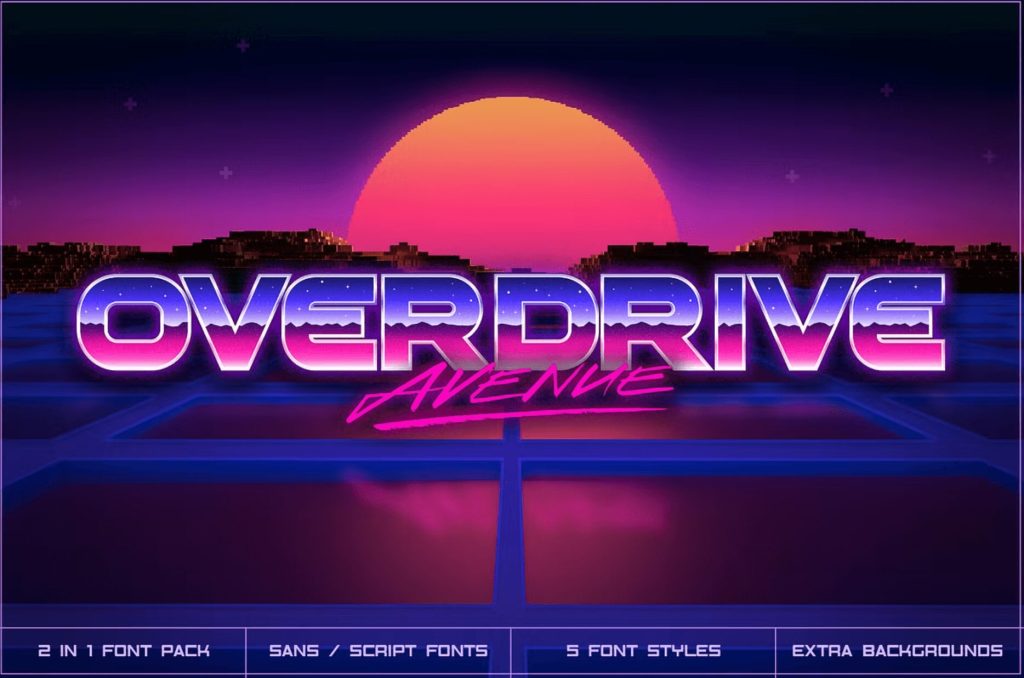
The 1980s meant going to the movies, some drive-ins were still around and renting a VHS tape from Blockbuster. Many movies of the era used big, thick lettering and had an almost futuristic look. Overdrive Avenue comes with sans serif and script styles, including an italics. The set also comes with an outline option.
2. Knight Brush
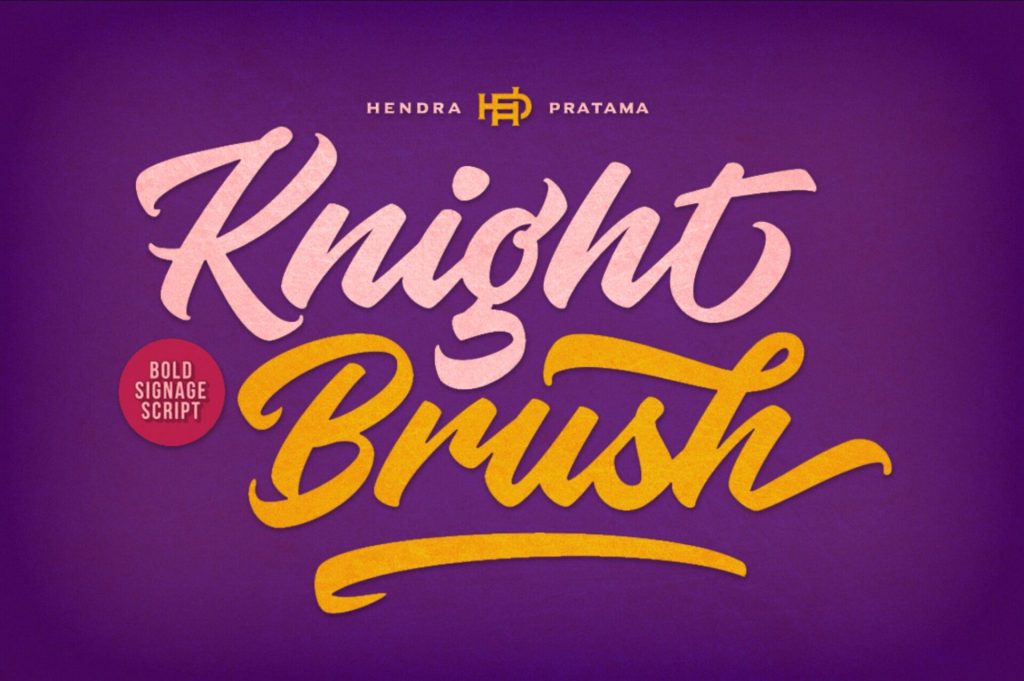
Knight Brush has a fancy, 1980s script feel to it that offers a unique appearance excellent for retro projects. Although it is script, it is still readable with the straight lines and added angles that give it that 80s vibe. The font comes with more than 570 glyphs for a handpainted look. The font supports multiple languages, including English, Albanian, Tetum, Pangasinan and Walloon.
3. Hadfield
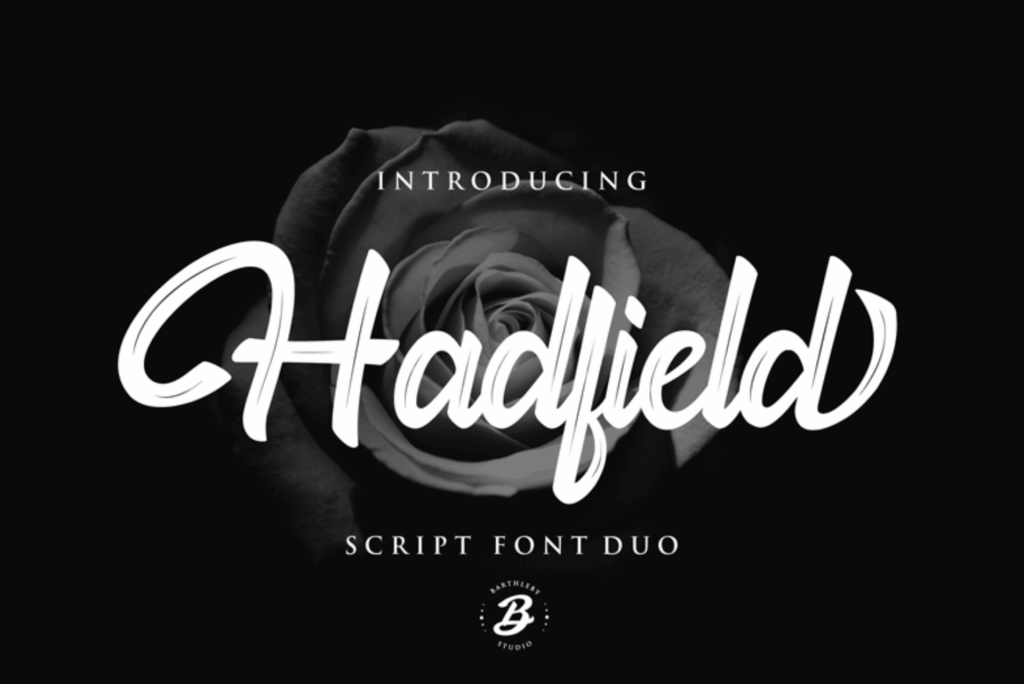
If you’re looking for a font that isn’t quite as thick but still has the 80s retro vibe, look no further than Hadfield. The font was initially released in the 1980s and made it to the number one font. It is a script-based rendering.
Hadfield is often seen on posters, logo and product packaging. Other fonts published around the same time include AG Book, Formata and Baskerville. One way you can get a 1980s style font look while still taking advantage of the modern advantages of today’s designs is by using a retro font in the heading and more current fonts in the body text.
4. Rodagear Script
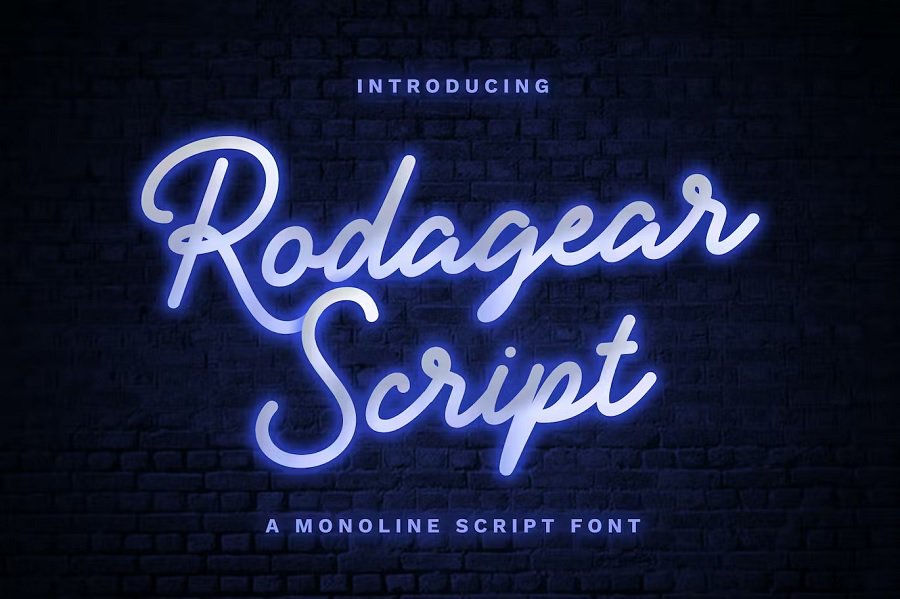
Neon signs and bright, bold colors were a staple of the 80s. Rodagear Script offers a slightly more sophisticated look with a tall x-height and swoops and swirls. In the image example, they’ve made the font look like a sign. The colors and accents you use can turn this option more into an 80s style font or something a bit more modern.
5. Orlando
Don Johnson had a distinctive 80s beach look in the show Miami Vice. Orlando font gives that same feel as the show set out to capture. It’s an edgy, somewhat futuristic but casual look that pulls the user in and makes them feel awed and comfortable at the same time.
Orlando is a multi-line font that looks handdrawn. Add the right background and other elements and you have a Miami Vice look alike that those who loved the decade will recognize.
6. Neoneon
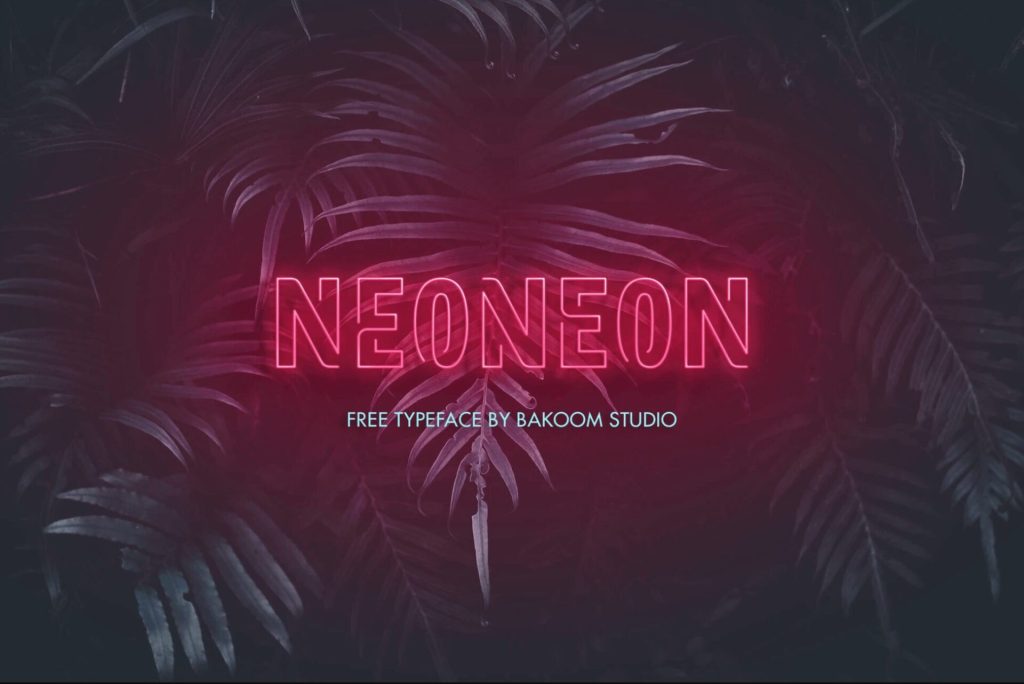
Nothing screams retrowave like neon. To capture this aesthetic, you should consider using Neoneon, a free 80s font that resembles the bright signage of years past. The outline font has some interesting quirks. First, some of the lines and angles intersect one another to create an almost script-like look.
The uniqueness and fun edge to the font scream 1980s style. Utilize the right colors and you have a look that brings back the time period of “gag me with a spoon” and parachute pants.
7. Arcade Machine
Teens in the 1980s went to movies and hung out at football games and made arcades a way of life. If you’re looking for a font that evokes a 1980s arcade, check out Arcade Machine. It looks like the lettering on many games and music albums of the decade. You can layer different bright colors for more interest.
8. Thunderstorm
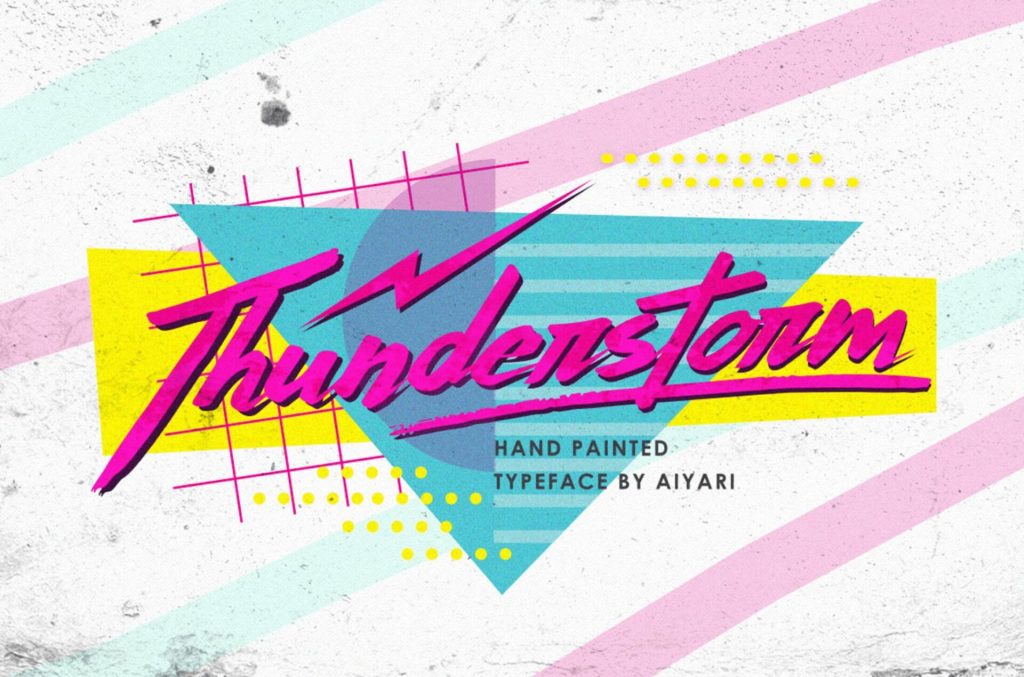
This beautiful Thunderstorm font reminds one of fast cars and fast times in high school. It is the epitome of an 80s style font thanks to the swoops and swirls seen on various movie posters of the time. It reminds one of movies such as “License to Drive” and “Footloose.”
Utilize 1980s colors such as neon-blue, vivid purple or brilliant hot pink for the right vibe. Layer the letters to give the look a lifted effect and it looks even more 80s.
License the font for around $17. You will need to pay a bit more for use on a book cover or other distributed material.
9. Barcade
No list of the best 80s fonts is complete without a nod to iconic arcade typography. Barcade by Iconian Fonts is a totally rad choice for a retro tech look. This all-caps font comes in several different styles, including italic options, and is free for personal use. Barcade is a great choice for an 80s game night or a Pac-Man-style aesthetic.
10. Lazer 84
Lazer 84 is one of the best 80s fonts, especially for a retrowave or vaporwave aesthetic. This font is rough and sleek at the same time, offering a bit of texture for 80s designs. It’s a good choice for applications like 80s-themed music or gaming. Lazer 84 is an all-caps font that is free for personal use, although the design studio does accept donations for the artist.
11. Alien Encounters
If you’re looking for a cyberpunk Blade Runner-style font, check out Alien Encounters by Shy Fonts. This free-to-use font really shines when used in a neon color set on a black background, making it look like text on an old-school computer screen. It’s one of the best 80s fonts for retro pop culture or retro movies applications.
12. Back to the Future 2002
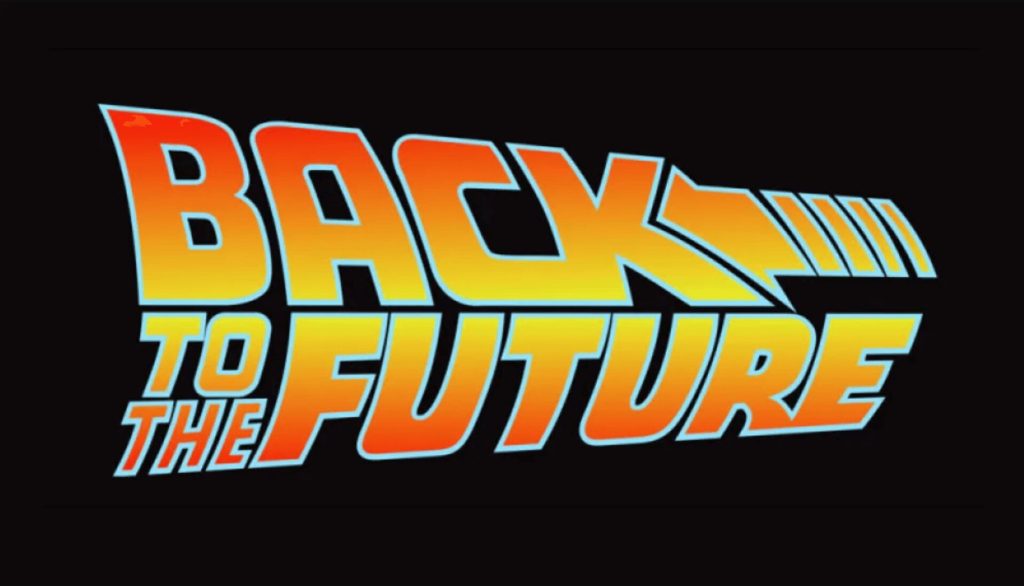
What list of the best 80s fonts would be complete without a nod to one of the most famous retro movies? Back to the Future 2002 takes clear inspiration from Steven Spielberg’s timeless 80s hit. This font is great for stand-out headline text on all kinds of 80s designs, such as posters or social media posts.
13. Stargaze Typeface
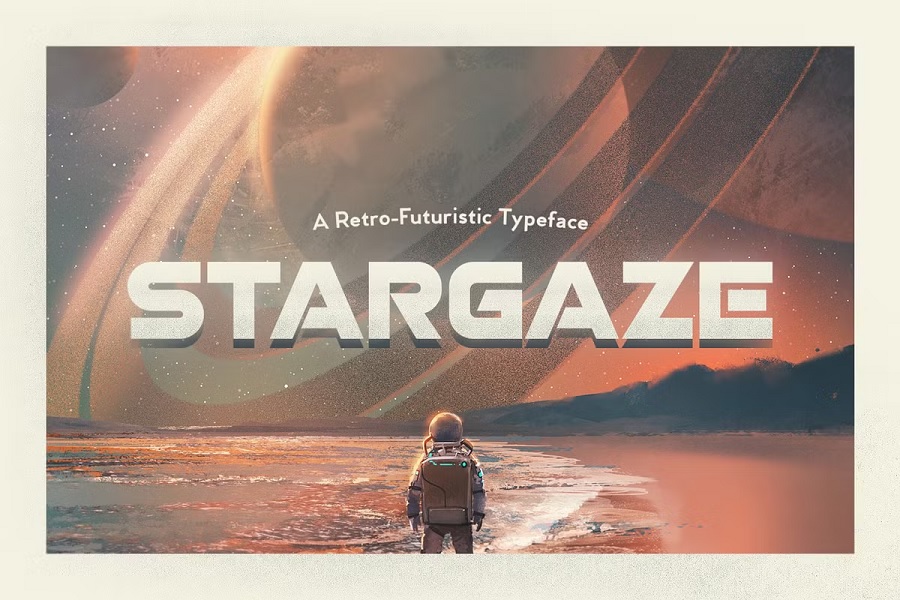
The Stargaze Typeface by Tugcu Design Co draws inspiration from the retro-futuristic look found in science fiction movies and the sci-fi nostalgia aesthetic. This font is polished and simple yet unique. It blends well with a variety of other fonts, so it’s easy to use in all kinds of 80s-inspired designs.
14. Copper
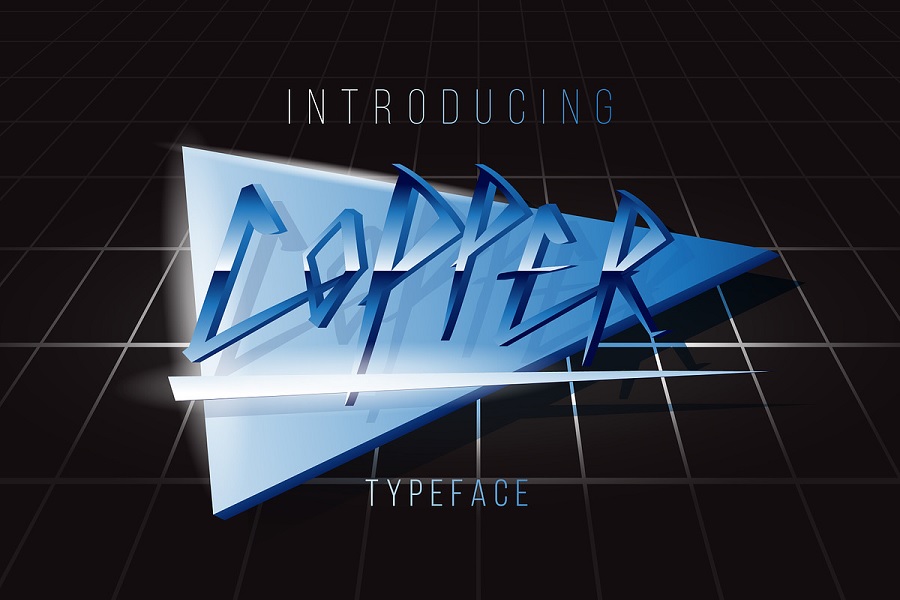
We’re rounding out our list of 80s fonts with a typeface that brings out the classic rock band aesthetic. Copper by Drizy is the perfect font for the sharp, metallic look commonly found on 80s album art and band logos. This font is a great pick for any 80s-themed music applications or vaporwave style designs.
15. CRT-64 Font
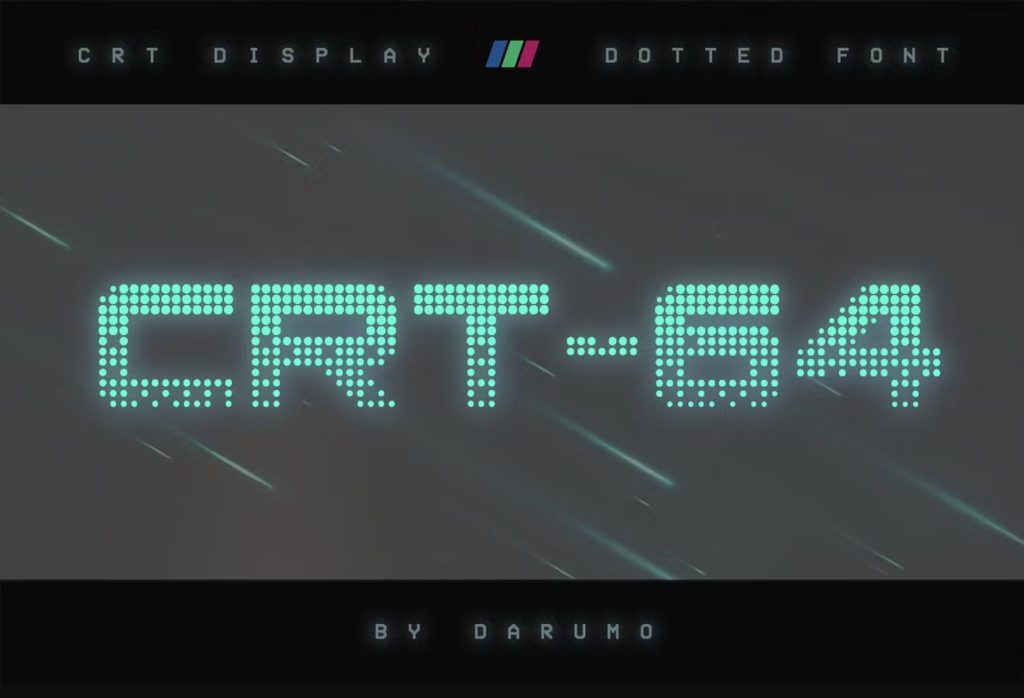
If you miss the retro look of CRT computer screens, check out the CRT-64 Dotted font. This is one of the best 80s fonts for its unique look. It takes a fresh approach to the retro pixel design aesthetic. CRT-64 is at its best in neon colors against a dark background. It makes a great font for retro tech, retro gaming, and cyberpunk designs.
16. Super Funky
Super Funky is a simple, groovy font inspired by the 70s and 80s. It’s super stylized, yet easy to read. Since it’s a TrueType font, you can scale it up or down without losing the details. The font pack comes with over 200 characters.
17. Road Rage
If you’re looking for a free 80s font you’d see on a horror movie poster, Road Rage is the perfect fit. By themselves, the characters appear to belong to a regular scratched font. However, that classic neon glow brings this typeface to life.
18. Overglow
Overglow is another 80s script font designed for graphic designers who want to capture the aesthetics of vaporwave or synthwave. Since it is more stylized, it is ideal for logotypes and titles. It comes with regular characters, underlines and glyphs.
19. Aerologica
Aerologica is one of the best free 80s fonts because it features a three-dimensional style and a faded reflection. Since you don’t have to painstakingly add these details yourself, you save time on font design.
20. No Signal
Although VHS tapes lasted until the early 2000s, they were a staple of the 80s. The No Signal all-caps display font immortalizes VHS with an eye-catching glitch effect. It is intended to resemble the distinct visual distortions of old videotapes. The creator has even added graphic styles for Adobe Illustrator and Photoshop, allowing you to achieve the classic effect in seconds.
21. Radical
If you have a soft spot for retro print ads, you’ll love this retro script typeface. It was one of the most popular fonts in the 1980s. Adding Radical to a loud, colorful design will hit viewers with a wave of nostalgia. It practically jumps off the page, especially with its characteristic shading.
22. SurfQuest
This retro 80s font family features 3D, condensed, wide, gradient, halftone, spaced and wavy variations. Whether you use SurfQuest Regular or opt for the “rotallic” style, you’ll capture that coveted retrowave aesthetic. It’s a good 80s font style because it’s versatile.
23. Shinelof Retro
You can channel the neo-psychedelic aesthetic with Shinelof, a sans-serif 80s font. It has 20 types of ligatures and over 40 alternatives. Whether you want to use this typeface for your brand’s logo or your blog’s title, you can truly make it your own.
24. Feels Like Nostalgia Script
The Feels Like Nostalgia script is reminiscent of handwriting on a cassette tape. It’s a companion to Feels Like Nostalgia, a synthwave-inspired display font by the same creator. They make a great pair for more complex graphic designs.
25. Endless Sunrise
As 80s font recommendations go, Endless Sunrise is among the best. This a hand-drawn script font was inspired by the titles of 80s action movies. In addition to uppercase and lowercase characters, you get numerals and punctuation. The font pack even comes with a complimentary sans-serif font and various underlines for maximum customization.
Best 80s Style Fonts
You can give almost any font an 80s look with the right details and shades. The ones listed above are an excellent place to start. However, don’t feel limited in choices as you can still get a retro vibe with modern font options.
The 1980s were a relaxed, intense and exciting time all at once. Capturing the feel of the decade requires understanding the personalities of the people driving pop culture and studying what designers of the decade focused most on. With a little practice, you’ll be able to mimic the attitudes of the 80s without losing today’s more advanced design skills.